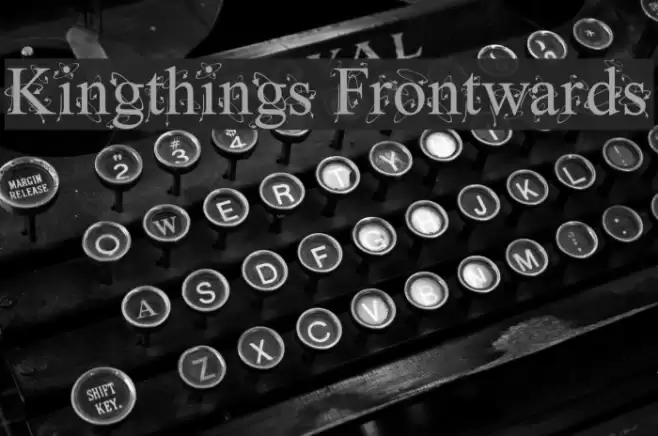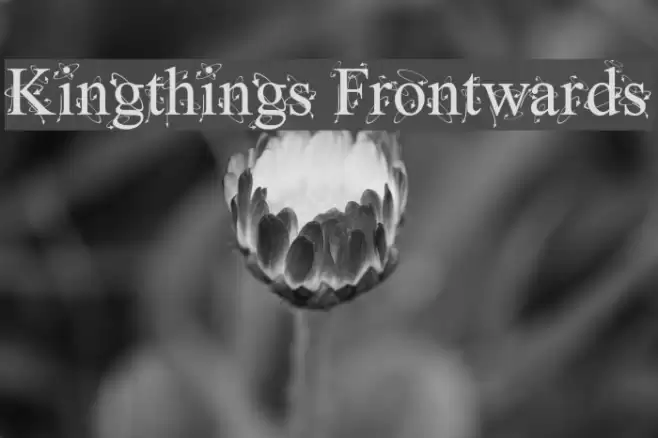
Kingthings Frontwards Font
Kingthings Frontwards Description
This font features a unique and whimsical design, characterized by its decorative and playful embellishments. Each letter is adorned with intricate swirls and loops, giving it a lively and dynamic appearance. The uppercase and lowercase letters maintain a consistent style, with the embellishments adding a sense of movement and flair. The numbers and special characters are equally ornate, ensuring a cohesive look across all elements. This font's distinct style makes it stand out, perfect for projects that require a touch of creativity and elegance.
A decorative font with whimsical swirls and loops from Uncategorized fonts.
- Proposed Projects: Ideal for invitations, greeting cards, artistic posters, and branding that requires a creative touch.
- Use Case: Headlines, Artistic projects, Branding